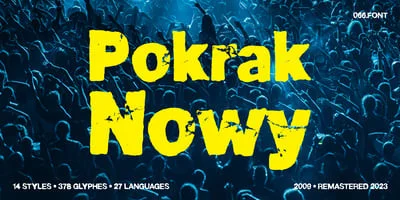
Pokrak Nowy Font
Pokrak Nowy Font is perfect for Polish cultural publications, Eastern European heritage branding, Slavic historical documentation, Polish restaurant menus, traditional folk art materials, and authentic cultural celebration projects. Its distinctive character makes it ideal for Polish cultural centers, Eastern European museums, Slavic language schools, traditional Polish bakeries, and any application requiring cultural typography that conveys Polish authenticity, Slavic heritage, and the enduring traditions of Central European cultural identity.
Pokrak Nowy Font is exciting because it celebrates the rich cultural heritage and linguistic beauty of Polish typography through thoughtfully crafted letterforms that honor centuries of Slavic writing traditions. Its cultural proportions and authentic details reflect the sophisticated literary heritage of Polish culture and the artistic excellence of Central European design, making it perfect for organizations seeking to preserve and celebrate Polish cultural authenticity. The font's heritage character transforms modern communications into tributes to Polish cultural pride.
Pokrak Nowy Font family includes culturally-inspired weight variations typically featuring Light, Regular, Medium, and Bold options with traditional styling that maintains Polish typographic authenticity. The family often incorporates Polish diacritical marks, Slavic characters, and cultural ornaments designed for authentic Polish applications, providing designers with comprehensive tools for creating genuine, Polish-focused typographic compositions.
When selecting Polish cultural typography solutions, Pokrak Nowy Font represents an exceptional choice for authentic heritage projects. This distinguished typeface brings instant Polish cultural credibility to any design, making it invaluable for Polish organizations, cultural institutions, and businesses celebrating Slavic heritage. Whether you're developing Polish cultural materials, creating Eastern European heritage campaigns, or designing traditional Polish restaurant branding, Pokrak Nowy Font provides the cultural authenticity and Polish heritage essential for honoring Central European traditions in today's culturally-diverse marketplace.